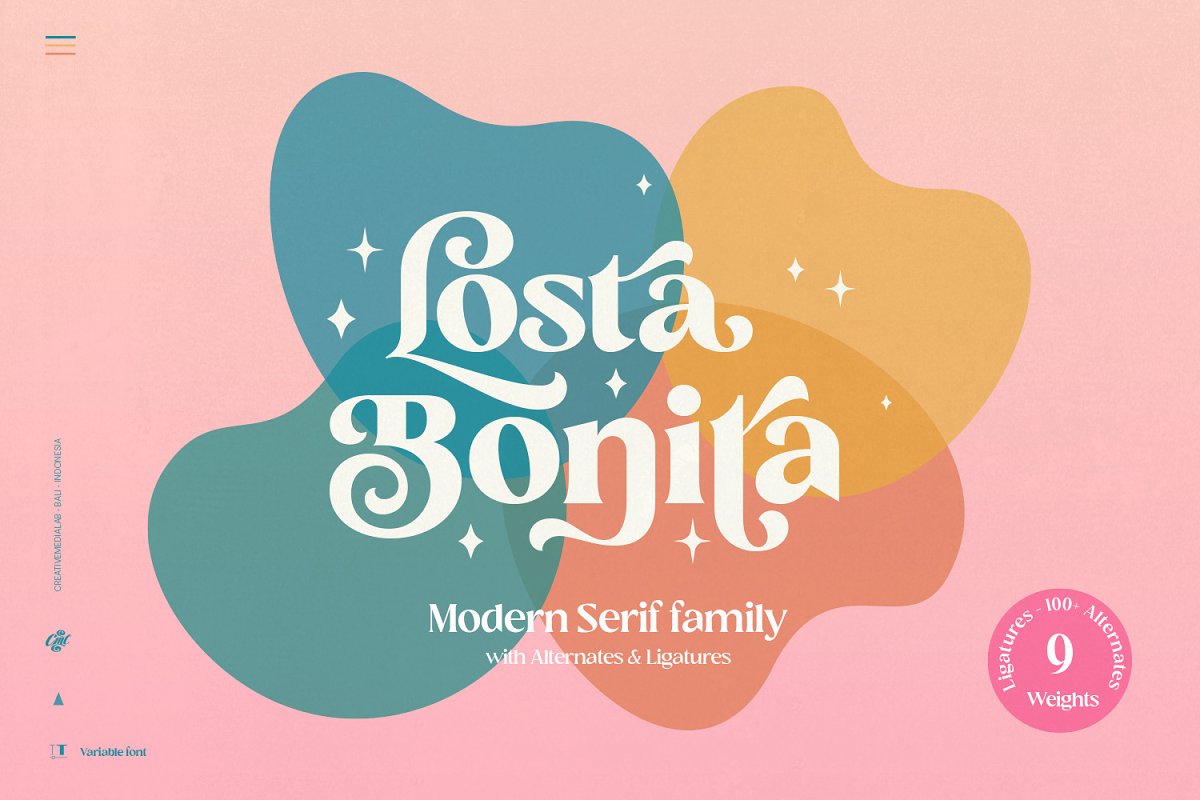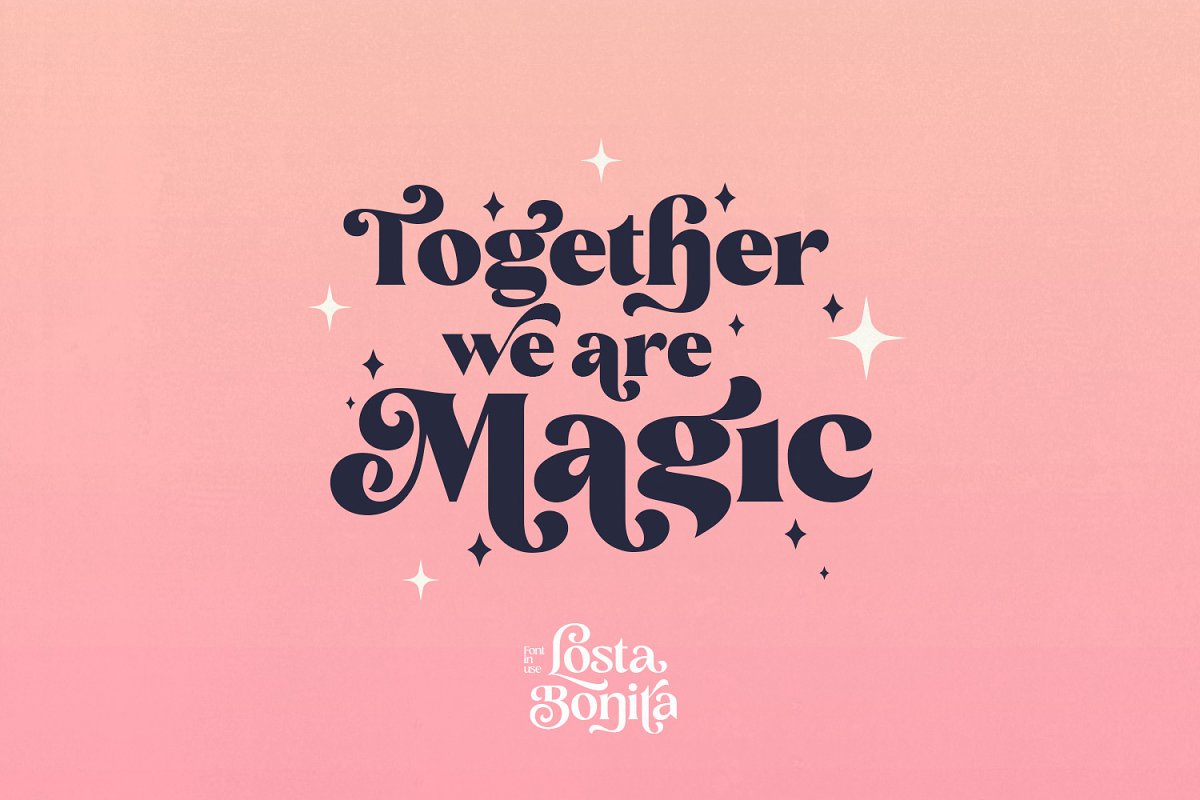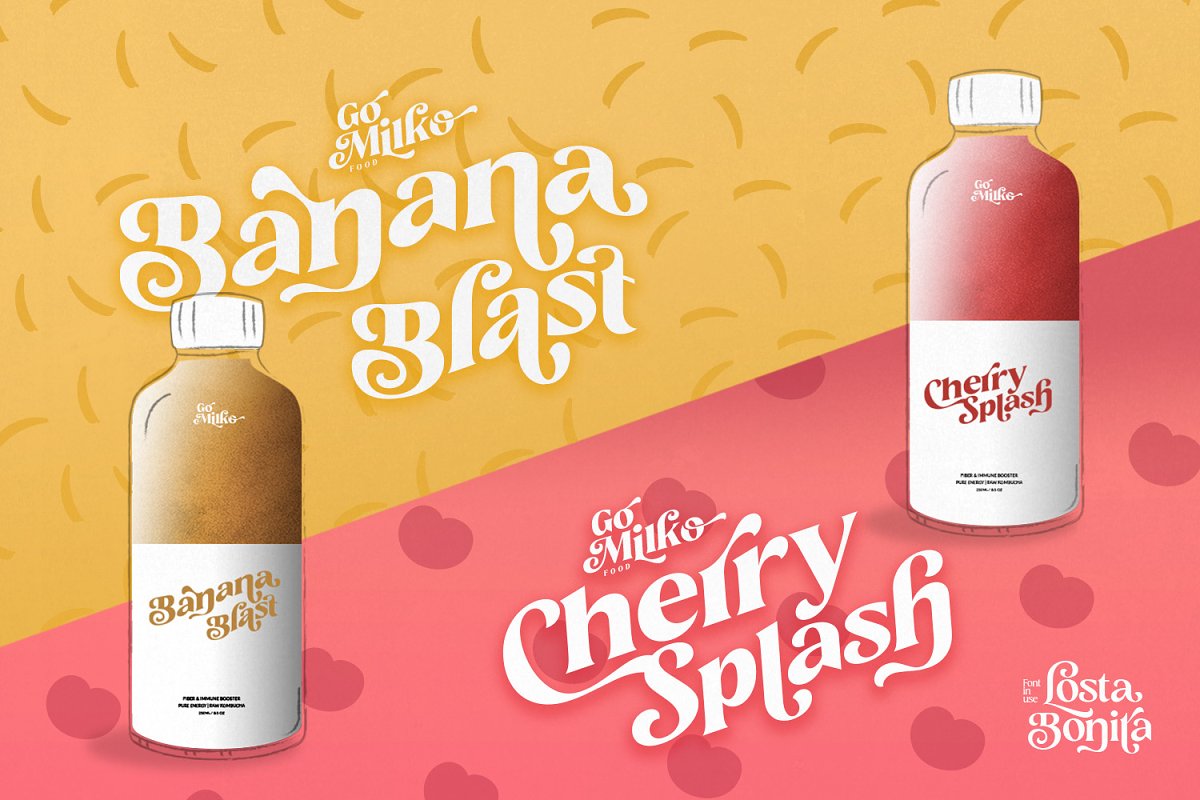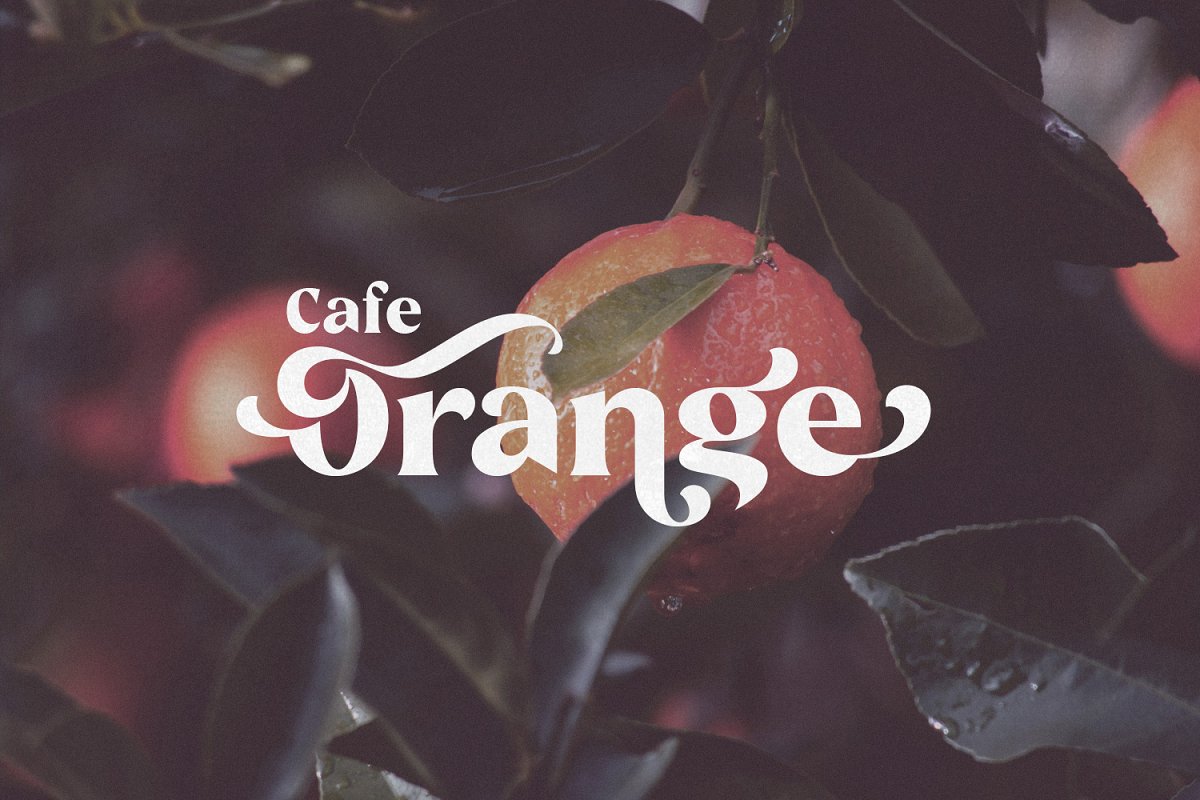
About the Losta Bonita Modern Serif Family
Introducing Losta BonitaA modern, vintage, and retro serif family, Consists of 9 weights from thin to black and variable format, The stylistic alternates allow many different unique shapes that give your lettering idea a well-looking look, how to access alternate?Adobe Photoshop go to Window – glyphsAdobe Illustrator go to Type – glyphsOthers ( Canva, Cricut Design Space, Etc ) open font book (mac) / Character map (Windows) – Set to view all Glyphs, copy the glyph that you want, and paste